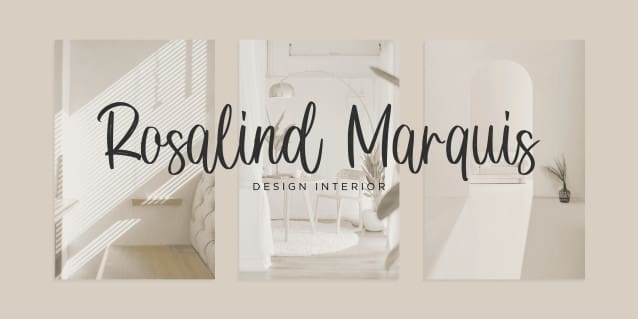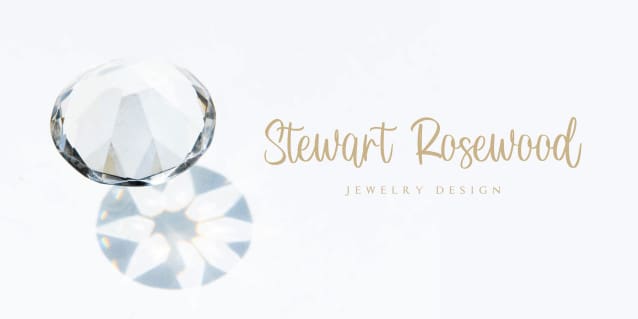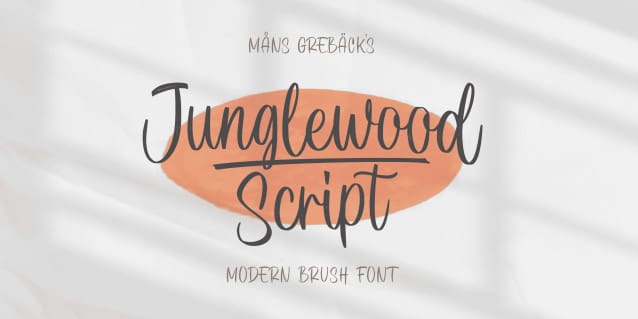
Junglewood Script Font
Junglewood Script Font, is a script brush font that can be interpreted professionally with a natural handmade. We keep this font look modern, readable, stylish, catchy, and easy to use.
Use underscores _ anywhere in a word to make underlines.
Example: Tho_rns and Mea__dows